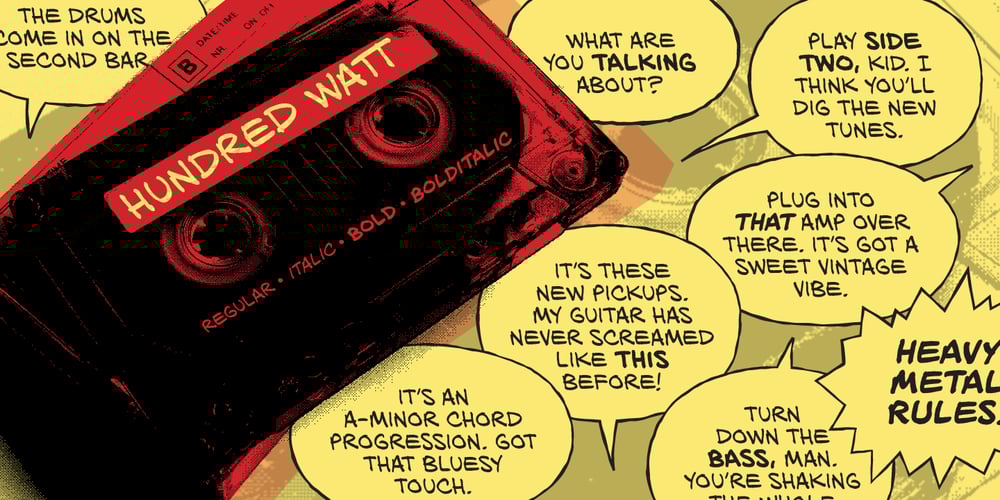
HundredWatt BB
HundredWatt BB font
HundredWatt BB Font Family was designed by Nate Piekos and published by Blambot. HundredWatt BB contains 8 styles and family package options. HundredWatt BB is an unconventional comic book lettering font family inspired by rock and punk music of the 80s. The family comes with Regular, Italic, Bold, and BoldItalic, with a large compliment of European characters. The opentype version contains autoligatures to swap out identical, adjacent letters for a more hand lettered feel.